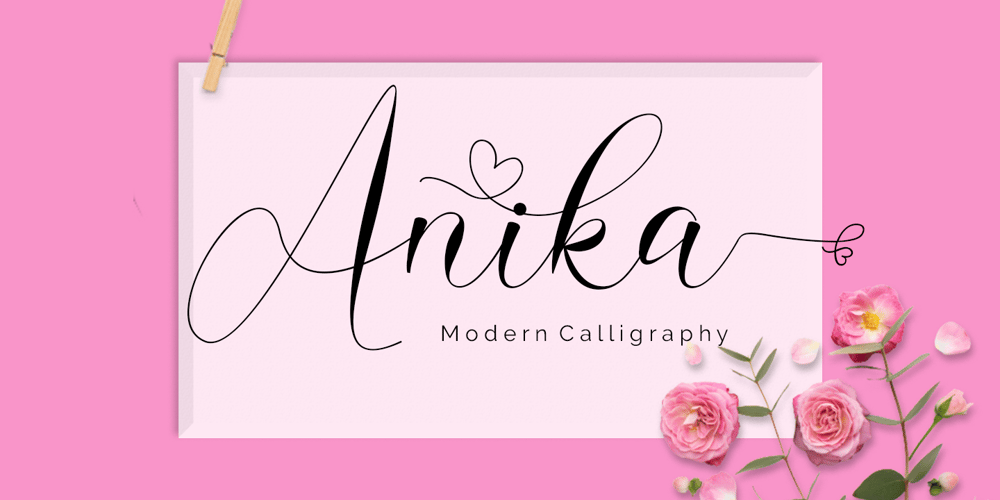
Hay Anika Font Family was designed by Mohamad Candirah and published by MC Creative. Hay Anika contains 1 styles and family package options. Hay Anika is a sweet and a natural script stylish script. Anika Calligraphy is perfect for wedding designs,monogram, invitation, branding projects, logo, social media posts, advertisements, product packaging, product designs, label, photography, watermark, stationery and any projects that need handwriting taste. What’s Included :· Standard glyphs· Ligature & Alternate· Works on PC & Mac· Simple installations· Accessible in the Adobe Illustrator, Adobe Photoshop, Adobe InDesign, even work on Microsoft Word.· PUA Encoded Characters – Fully accessible without additional design software.· Fonts include multilingual support for; ä ö ü Ä Ö Ü ß ¿ ¡Thank you for your purchase! Hope you enjoy with our font!